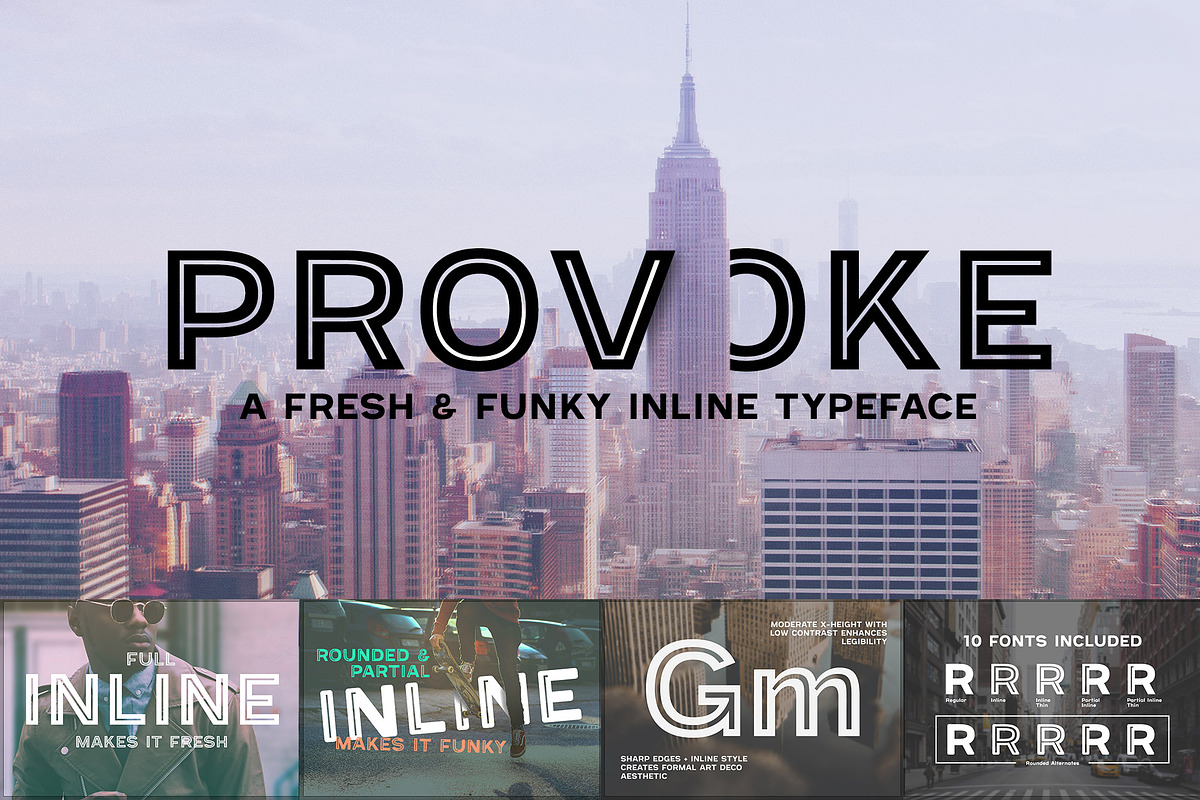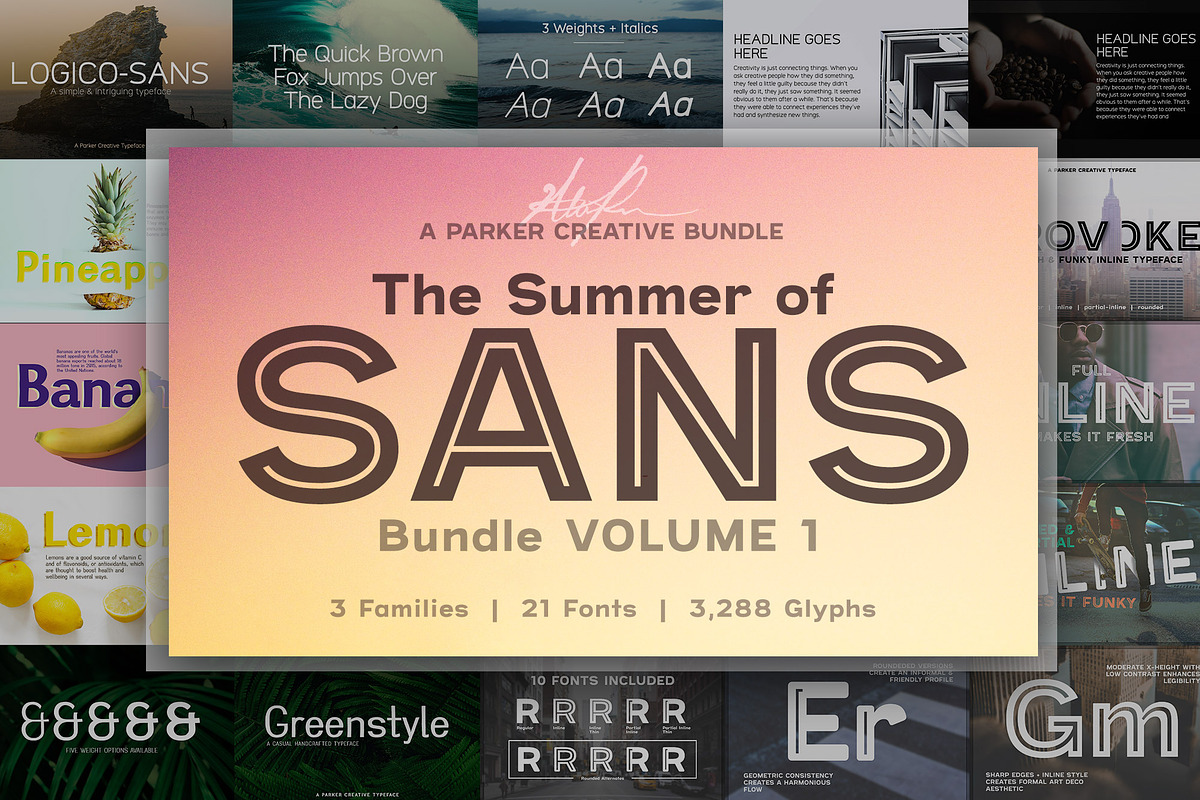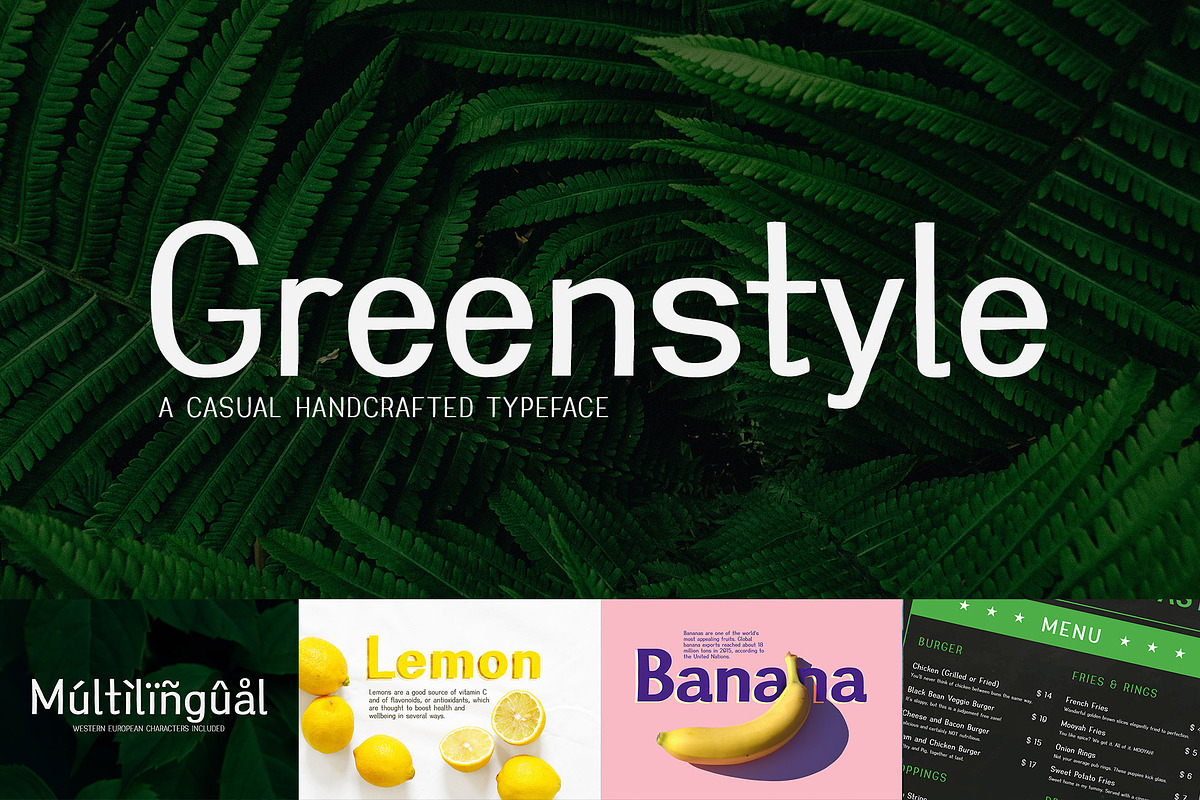
Summer of Sans Font Bundle
The Summer of Sans Bundle Volume 1 is here!
Get some of the hottest new typefaces on Creative Market in this brand new bundle from Parker Creative. The Summer of Sans Bundle Volume 1 includes 3 Parker Creative typefaces, including the all-time best-seller Logico-Sans. In total you'll receive 3 complete typefaces featuring 21 font variations for a total of 3,288 included glyphs!
Logico-Sans A simple & intriguing typeface. Logico Sans has a sleek and modern aesthetic, geared to read well at both large and small sizes.
Greenstyle is a hybrid typeface that takes the imperfections of natural handwriting and marries it with the cleanliness of evenly weighted sans-serifs. The result is a clear, breathable look with casual hints of character and rustic style.
Provoke Inspired by Art Deco design, Provoke is a powerful display typeface that features sharp geometric design and stunning inline cutouts of varying styles. This typeface is boldly rooted in modern urban culture and can create two incredibly distinct visual styles based on the specific font that is utilized.